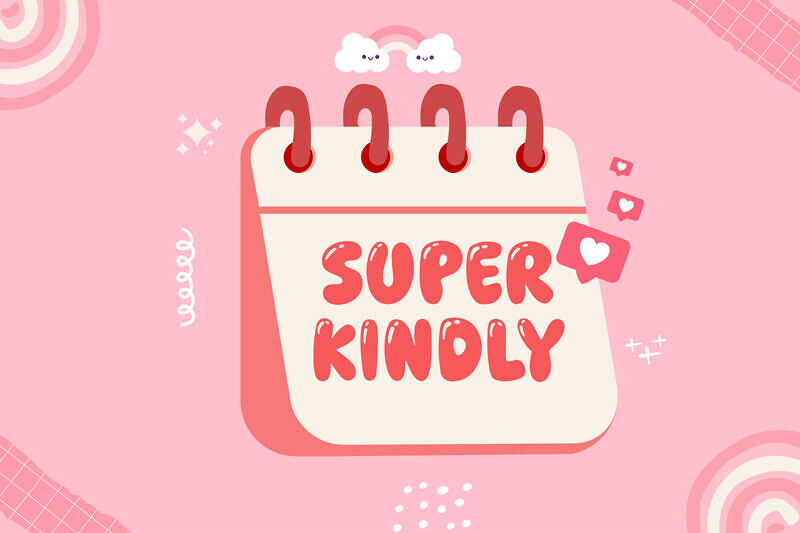
The “Super Kindly” font features a bold, rounded, hand-drawn style with a playful and cute aesthetic. Its thick, smooth letters exude a friendly and approachable vibe, enhanced by whimsical details like hearts, making it ideal for cheerful designs.
Available in a single regular style, it offers a consistent, vibrant look perfect for creative projects.